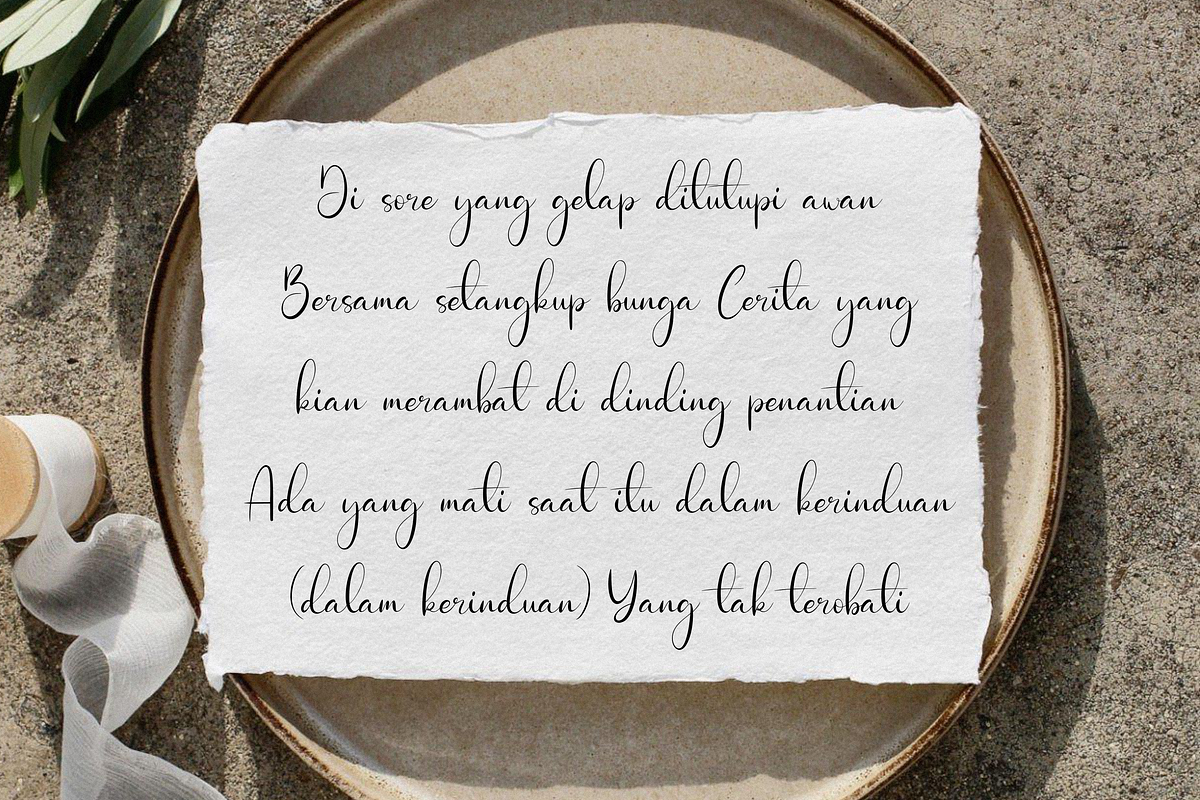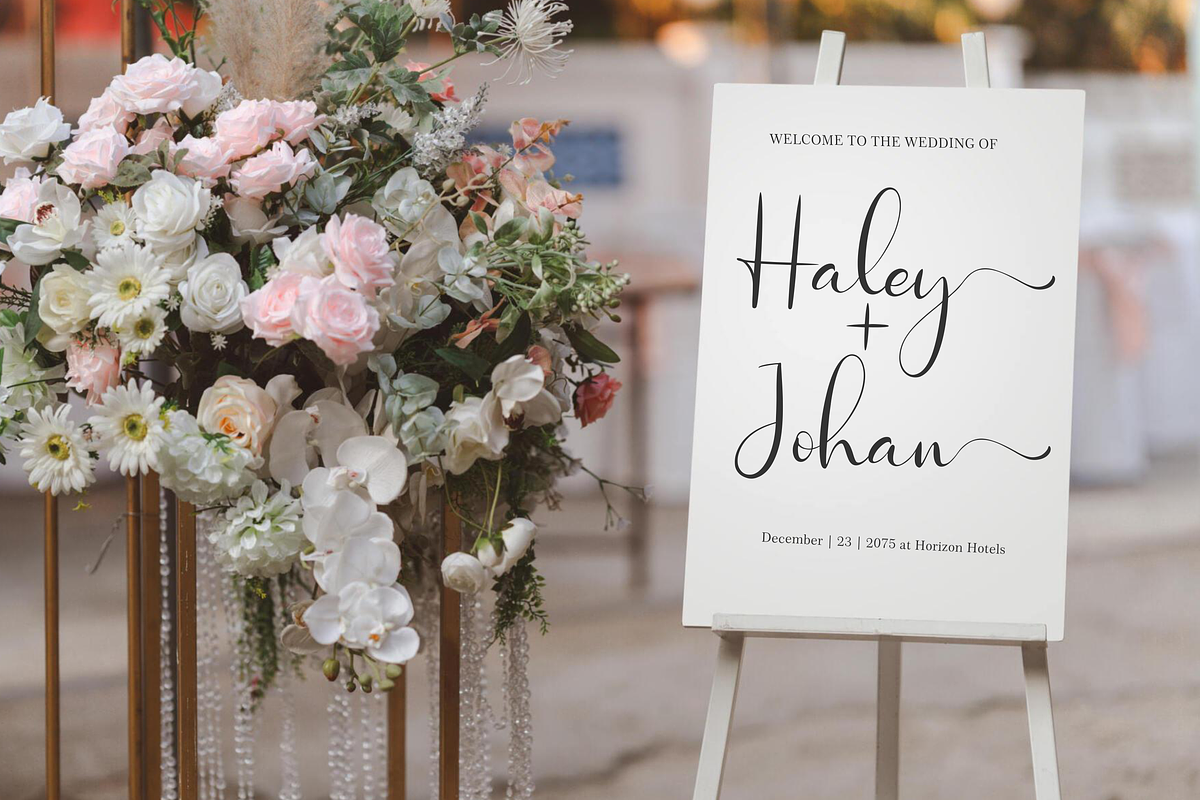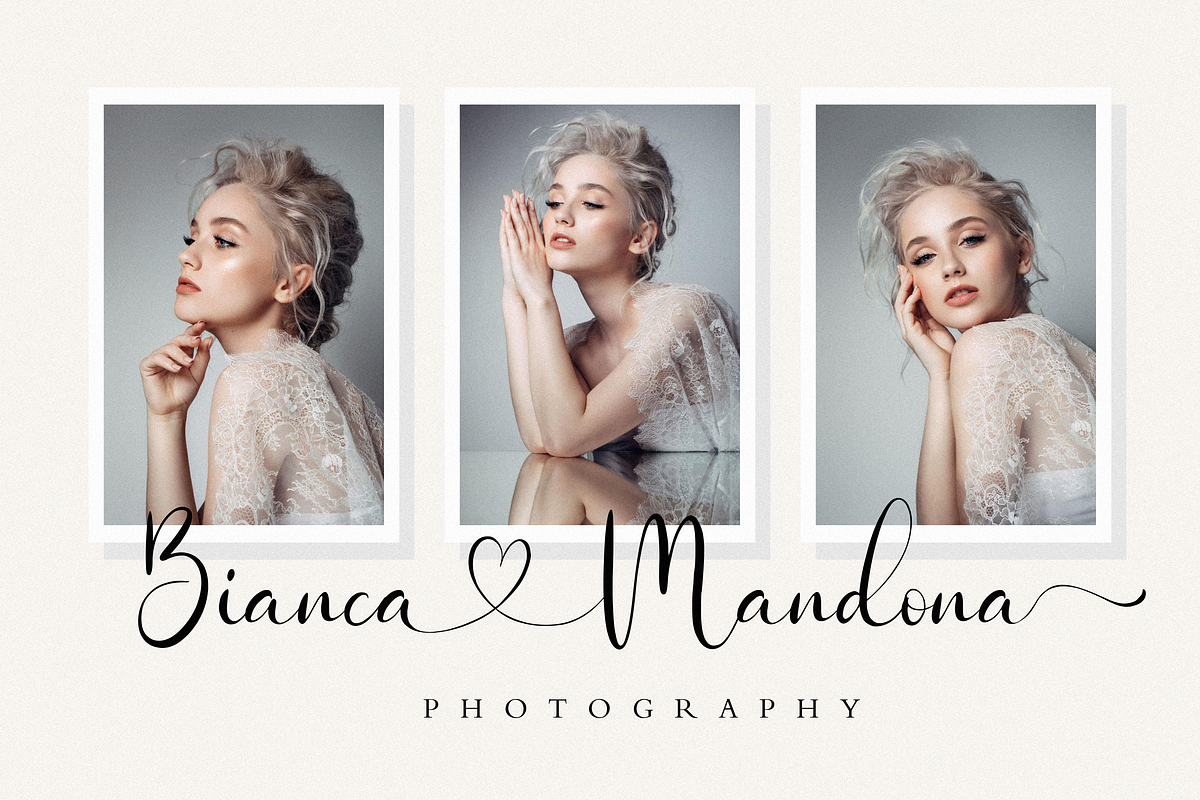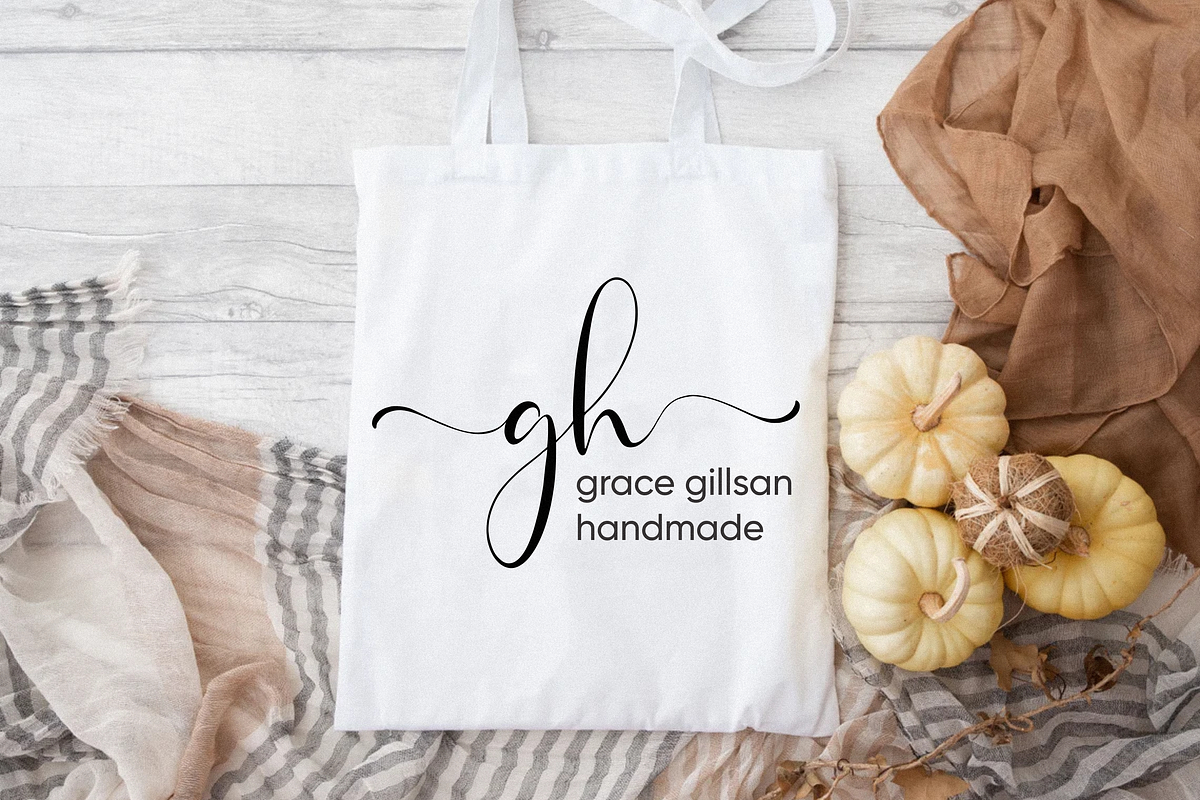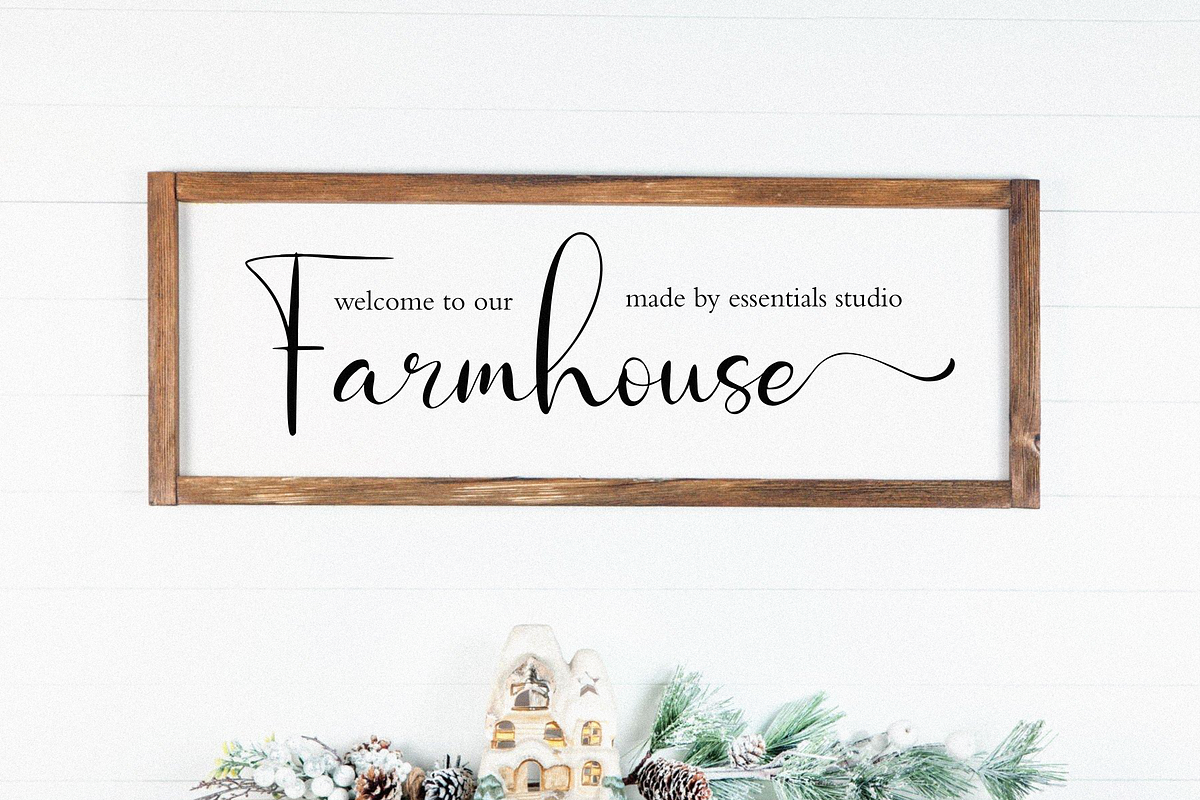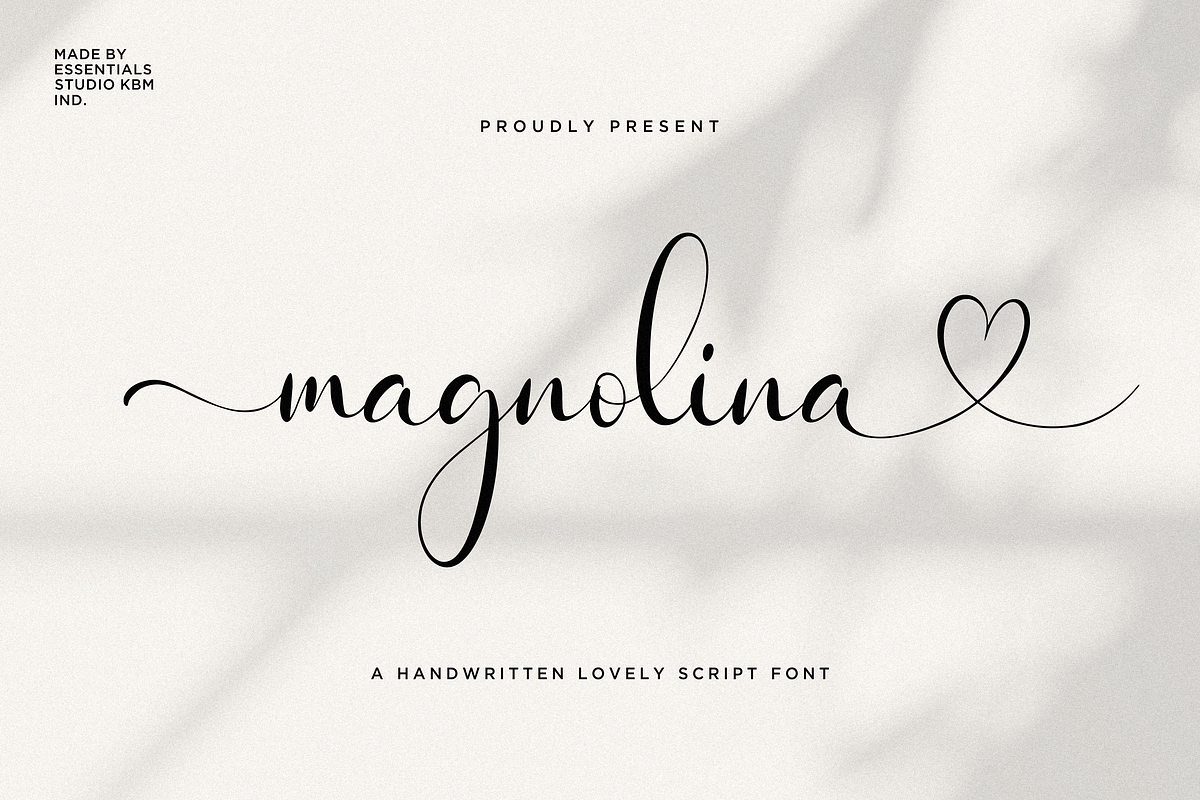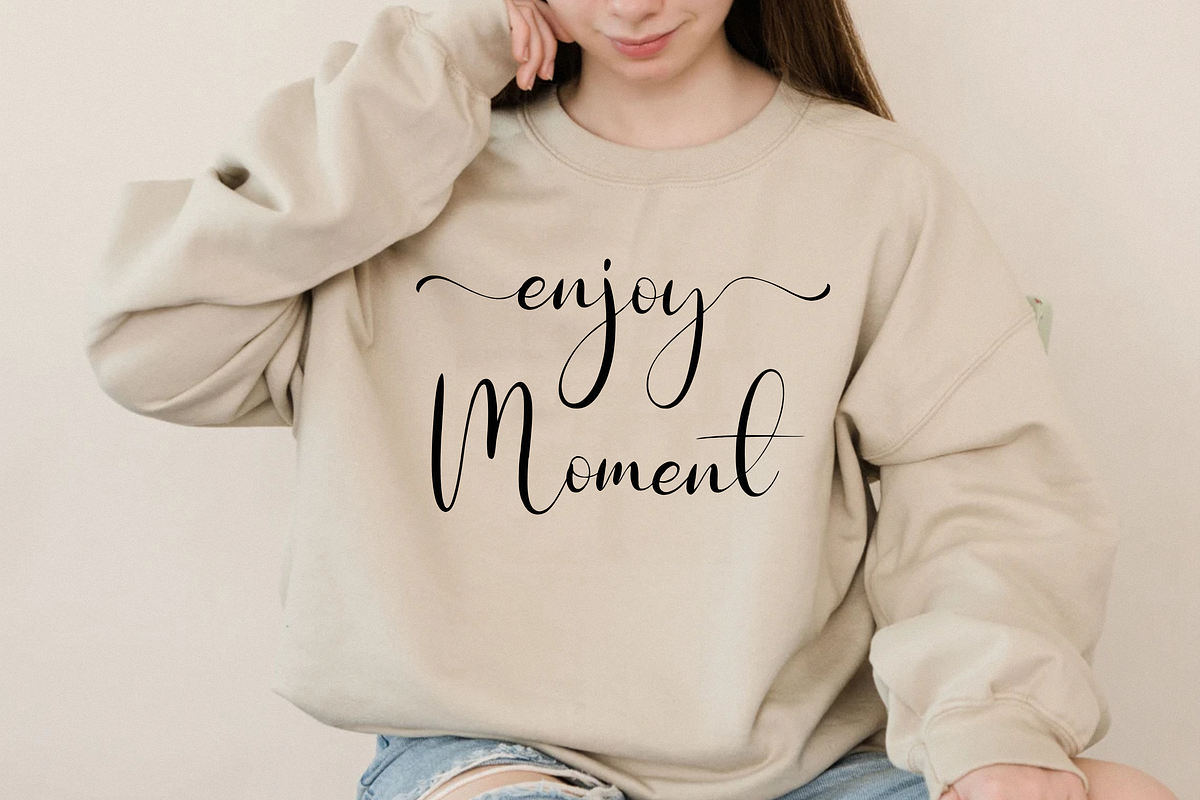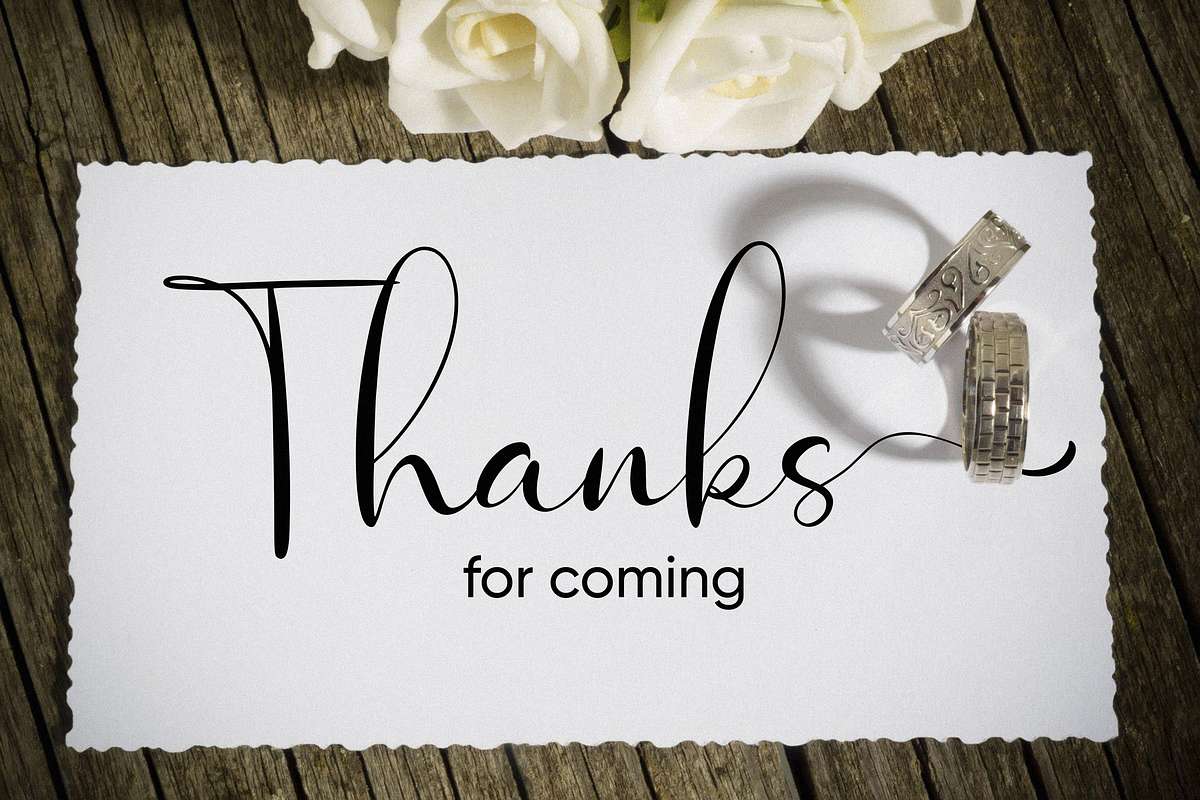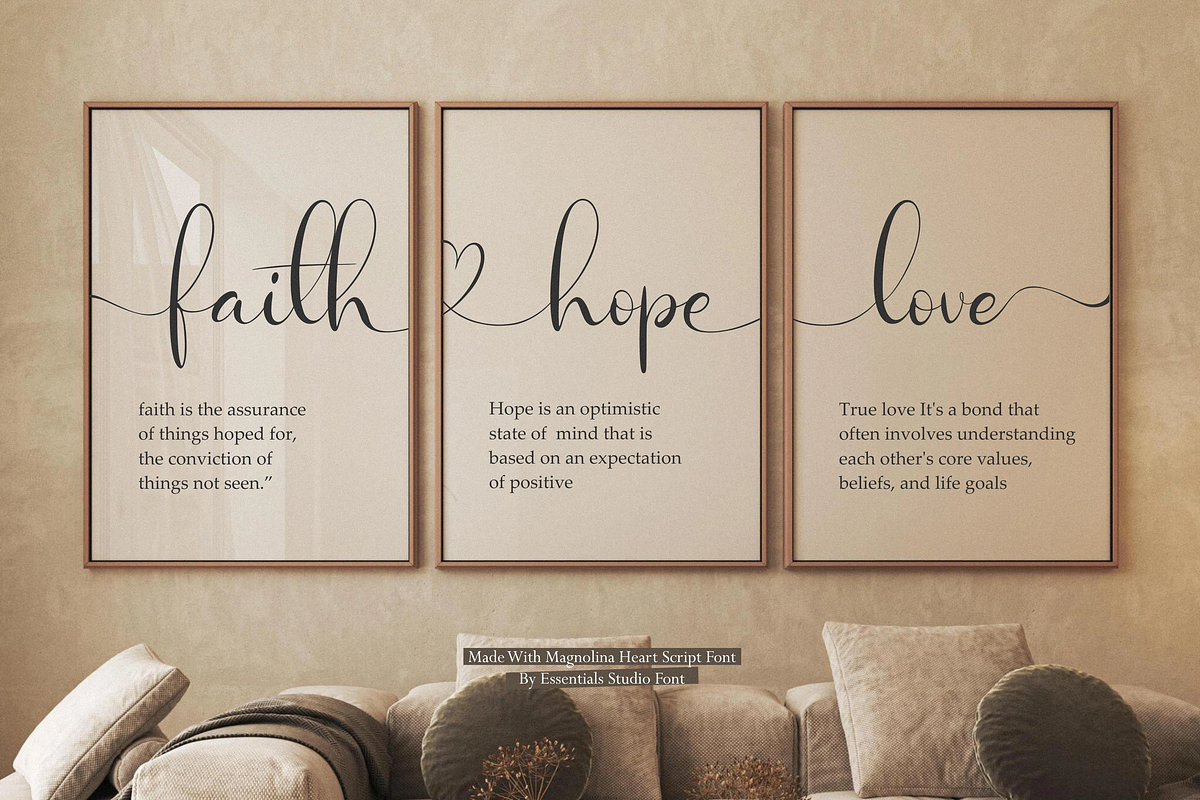
Magnolina
Introducing by Essentials Studio
Proudly Present, Magnolina
Magnolina Is a Lovely Script Font With Swash and Ligature More Than 50 Stylish love Alternate
Magnolina is perfect for product packaging, branding project, megazine, social media, wedding, or just used to express words above the background.
This font also Multilingual Support